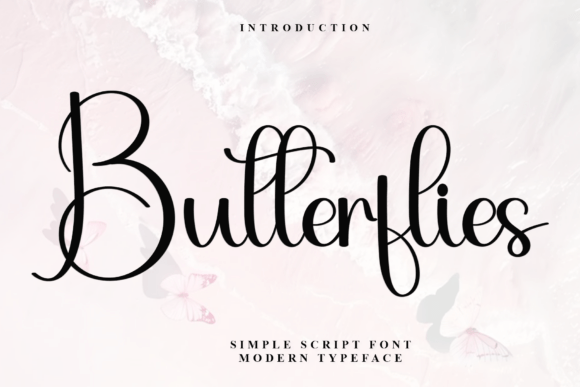
The Butterfly Effect: How a Delightful Font Can Transform Your Designs
I’ll never forget the time I was working on a whimsical wedding invitation project, and my client asked for a font that was “fun, playful, and romantic.” I scoured the internet, trying out font after font, but nothing seemed quite right. That was until I stumbled upon Butterflies Font. Its charming, hand-drawn aesthetic and round, playful strokes immediately captured the essence of what my client was looking for. In that moment, I knew I’d found the perfect fit.
A Personal Review of Butterflies Font
• ✨ The casual and creative vibe that exudes warmth and friendliness
• ✅ The relaxed and approachable feel that’s perfect for personal projects, invitations, and social media graphics
• 🎉 The standard PUA Encoded glyphs that make it compatible with various application engines
• 💕 The charming, hand-drawn aesthetic that adds a fun and unique touch to any design
While Butterflies Font is an excellent choice for many design projects, there are a few things to keep in mind:
• ⚠️ The font may not be suitable for very formal or professional projects, as its playful nature may not be taken seriously.
• 🤔 Some users may find that the font’s rounded edges and irregularities can make it difficult to read at very small sizes.
A Practical Guide to Using Butterflies Font
The Story Behind Butterflies Font
Butterflies Font was designed with the intention of creating a font that was both fun and elegant. The designer, inspired by the beauty of nature and the playfulness of childhood, set out to create a font that would capture the essence of whimsy and wonder. With its charming, hand-drawn aesthetic and round, playful strokes, Butterflies Font is the perfect result of this creative vision.
Q: What is PUA Encoded glyphs?
A: PUA (Private Use Area) Encoded glyphs are special characters that are not part of the standard Unicode character set. They are used to add additional features and characters to a font, making it more versatile and useful for designers.
Q: Is Butterflies Font suitable for body text?
A: While Butterflies Font is a beautiful and charming font, it may not be the best choice for body text. Its playful nature and irregularities can make it difficult to read in large blocks of text.